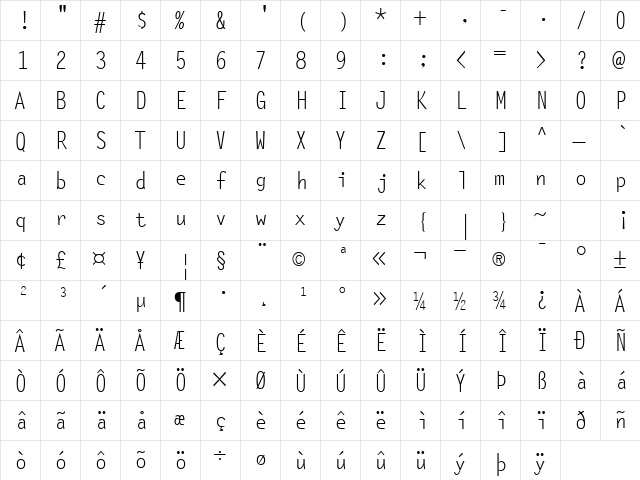
Ocelot Monowidth Normal
Design Context for Ocelot Monowidth Typeface
Ocelot Monowidth brings the precise, column-aligned rhythm of monospaced typography to designs that value technical clarity and systematic order.
A natural fit for code editors, technical documentation, developer-focused branding, and terminal-inspired UI.
Pro Tip: Pair Ocelot Monowidth with a proportional sans for UI contexts where code-style labels and regular body copy need to coexist.